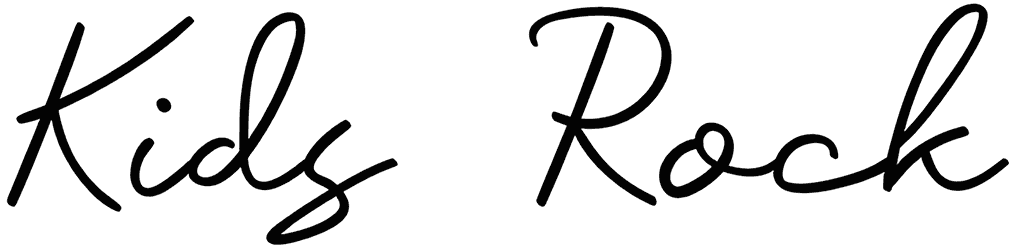
Kids Rock Font
Kids Rock, a handwritten font that can be used to create a casual impact, will give your digital works a more authentic look and feel. This cursive font looks wonderful in any setting and deserves recognition for its friendly tones, on everything from invitations and greeting cards to posters, flyers, and invitations. Go ahead and take it if you’re up for the task.
Kids Rock is a relaxed, cursive and light script font. Whatever the topic, this font will be a wonderful asset to your font library, as it has the potential to enhance any creation.